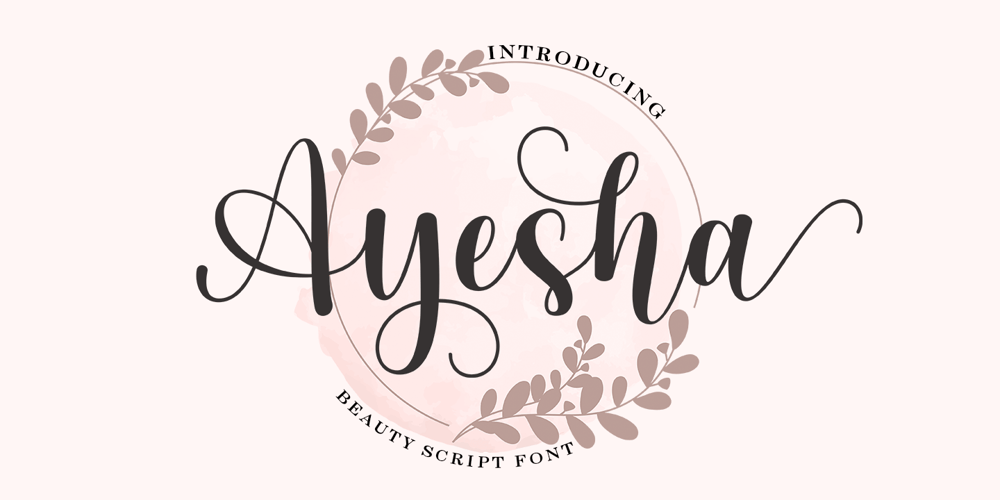
Ayesha Font Family was designed by Sidiq Fahmi and published by Rotterlab Studio. Ayesha contains 1 styles and family package options. Ayesha is beautiful and lovely script font with many alternative styles, ligatures, swash and multilingual glyphs.Ayesha can be used for wide ranges of application, such as wedding design, logo, poster, name card, invitations, social media posts, and others.Files include:Ayesha Script.OTF+ PUA-Encoded+ Can be used in any software, like AdobePhotoshop, Illustrator, even Microsoft Word, PowerPoint and others+ Multilingual glyphs.Thank You